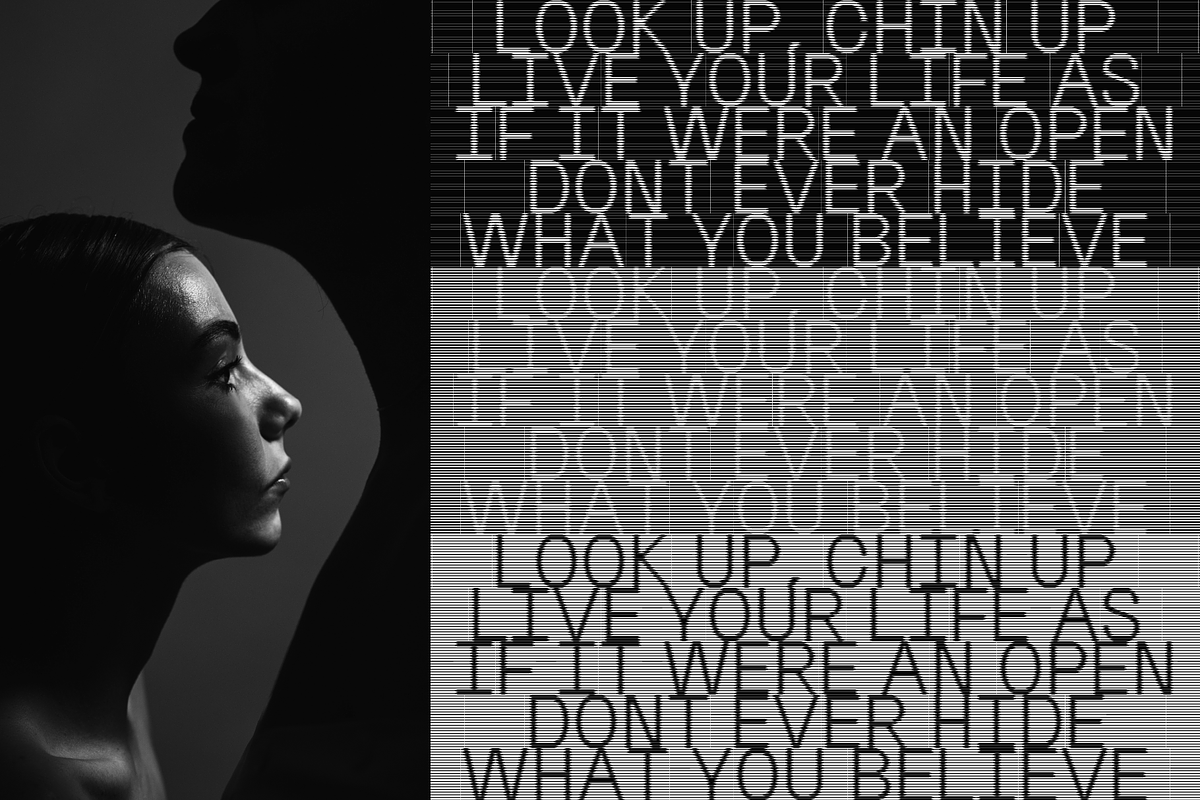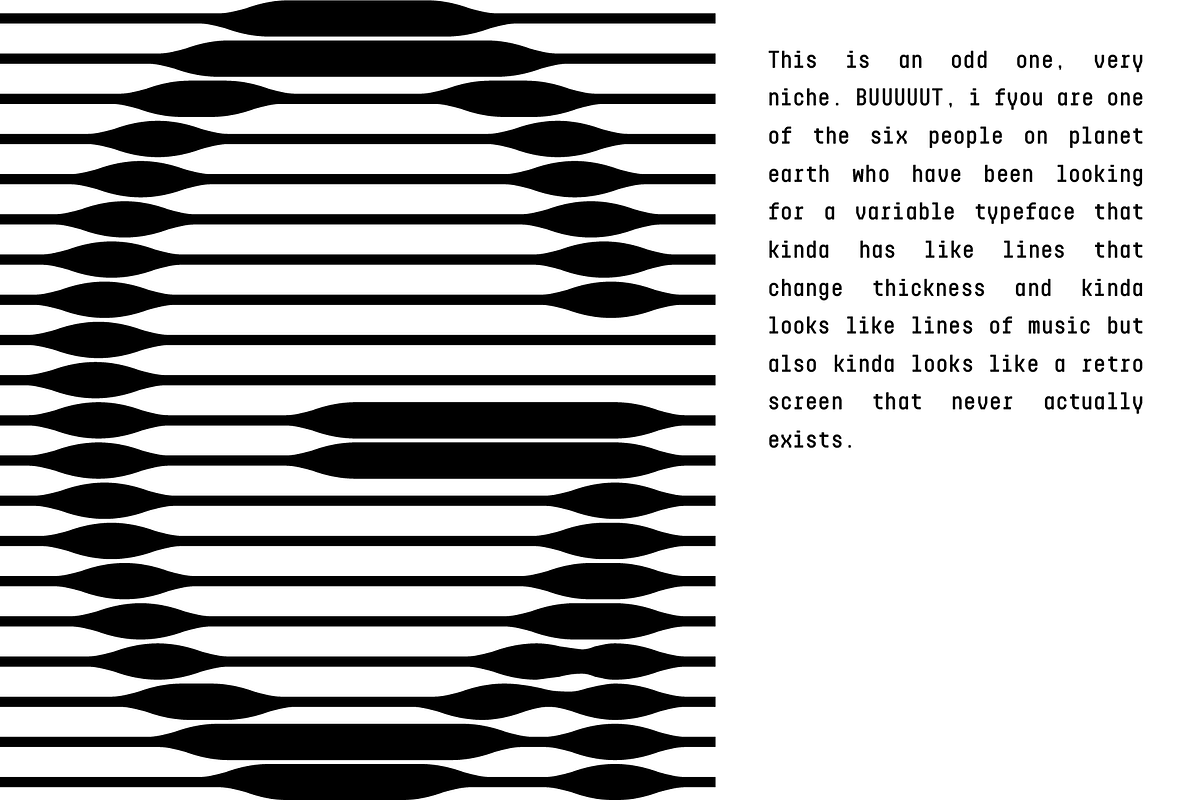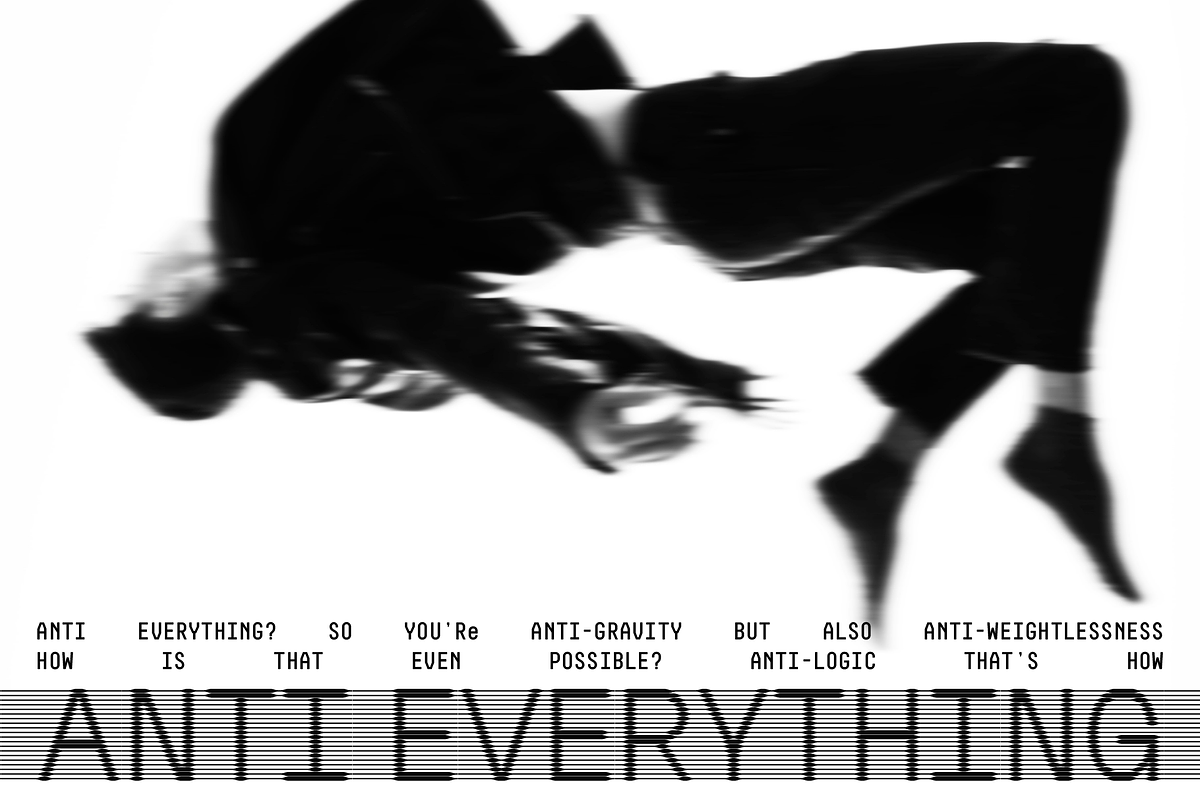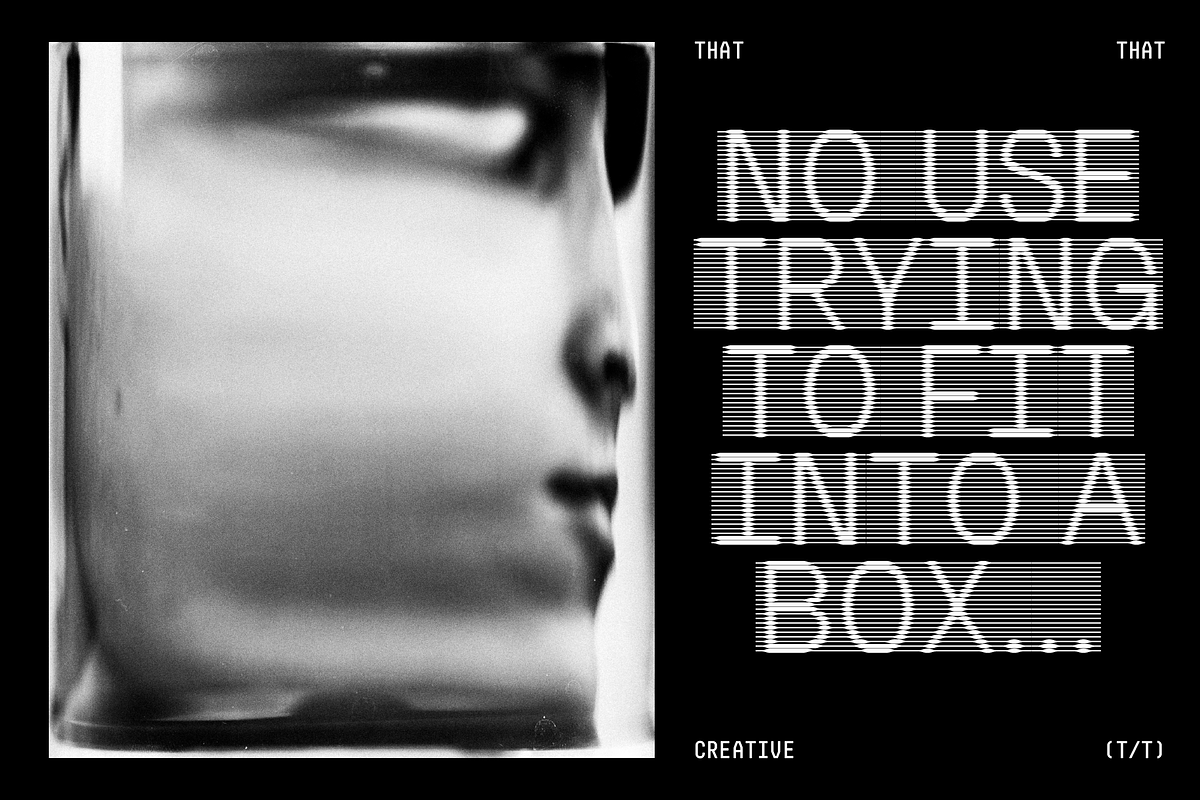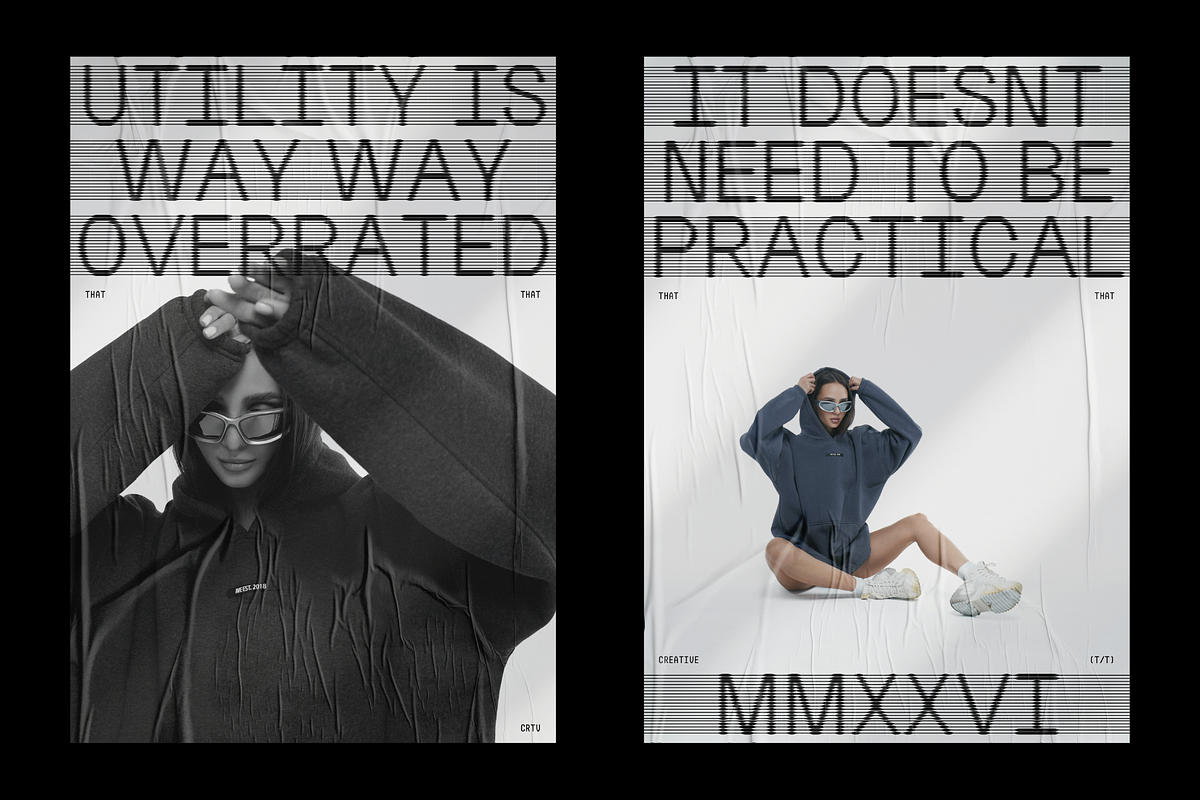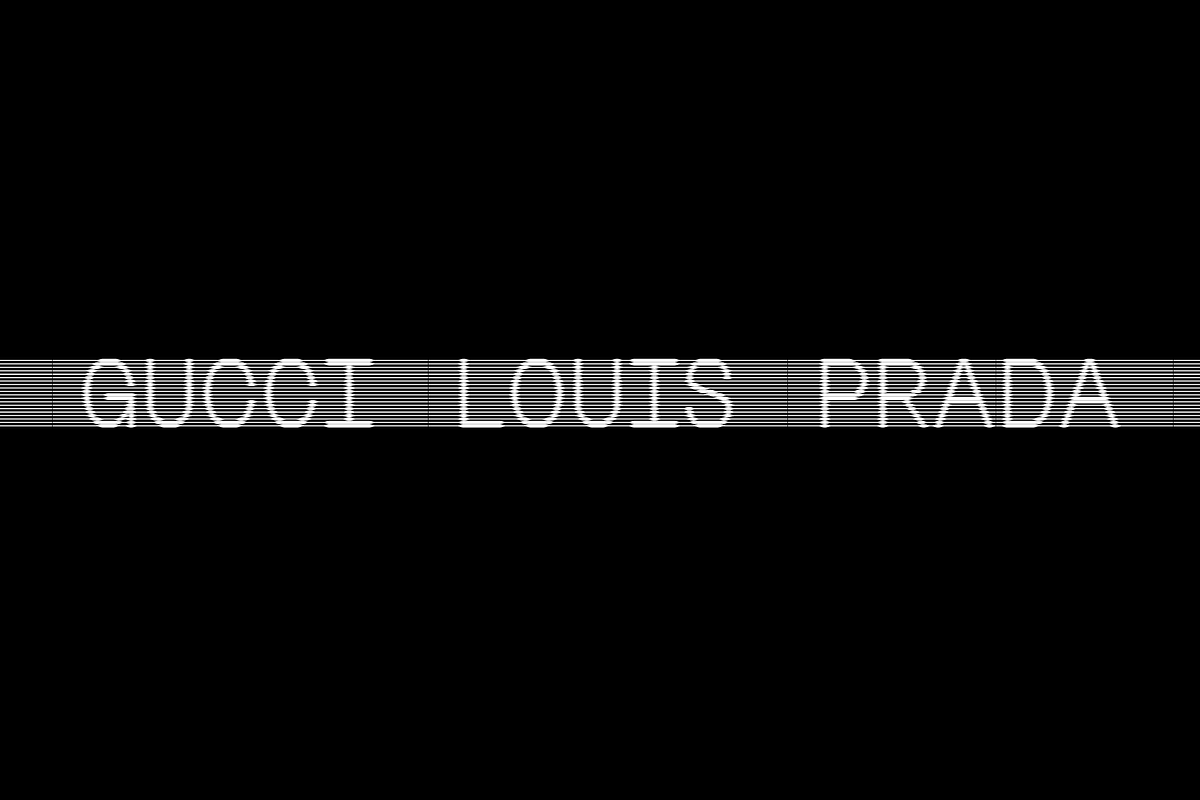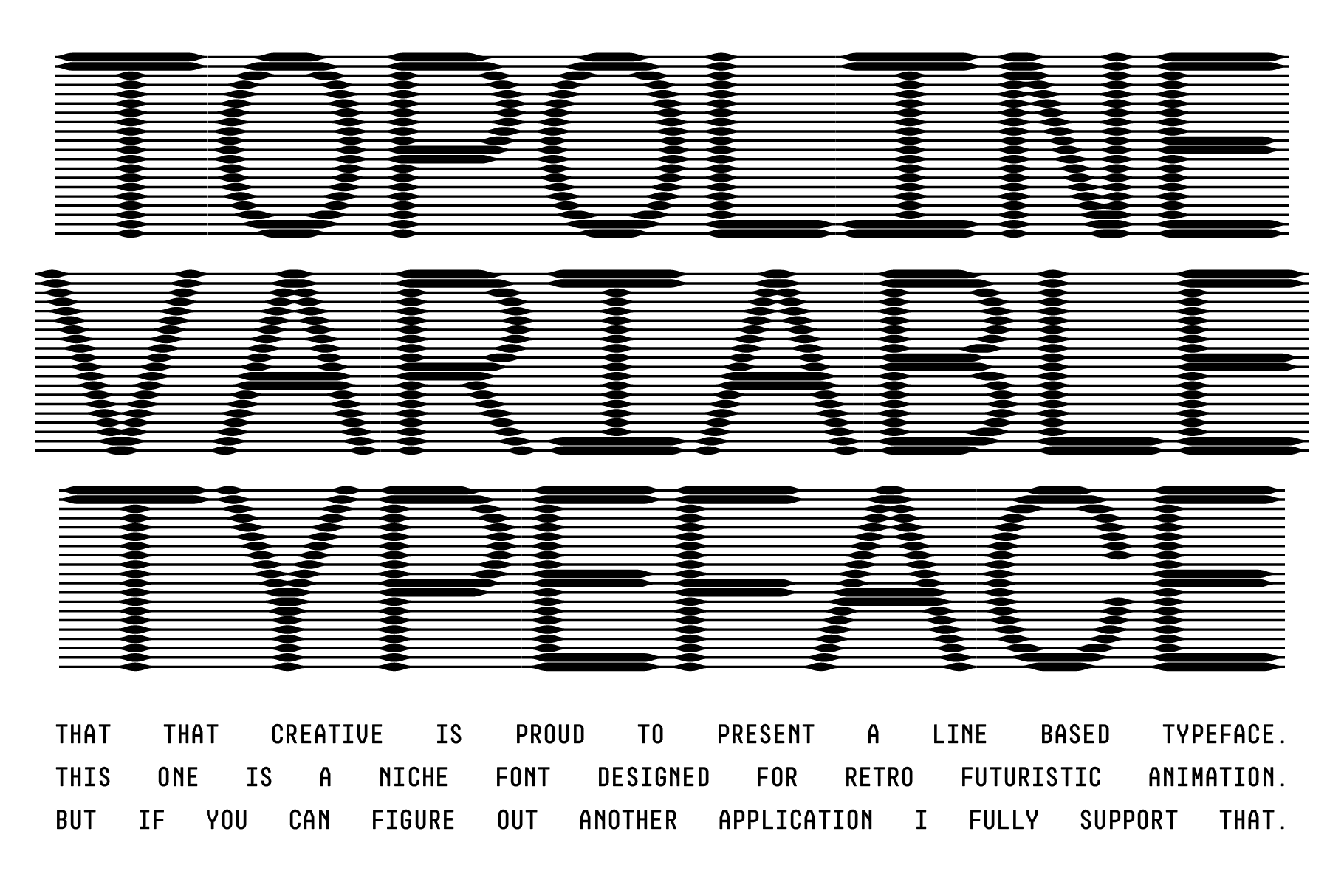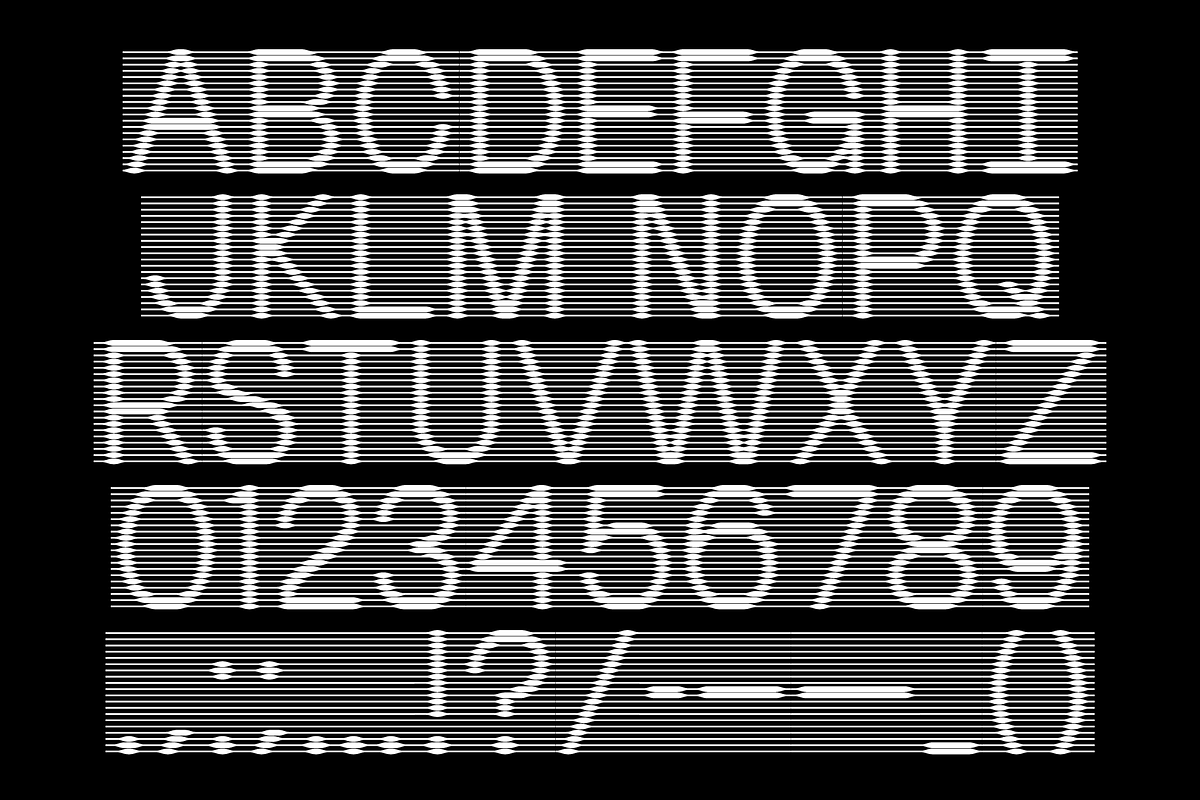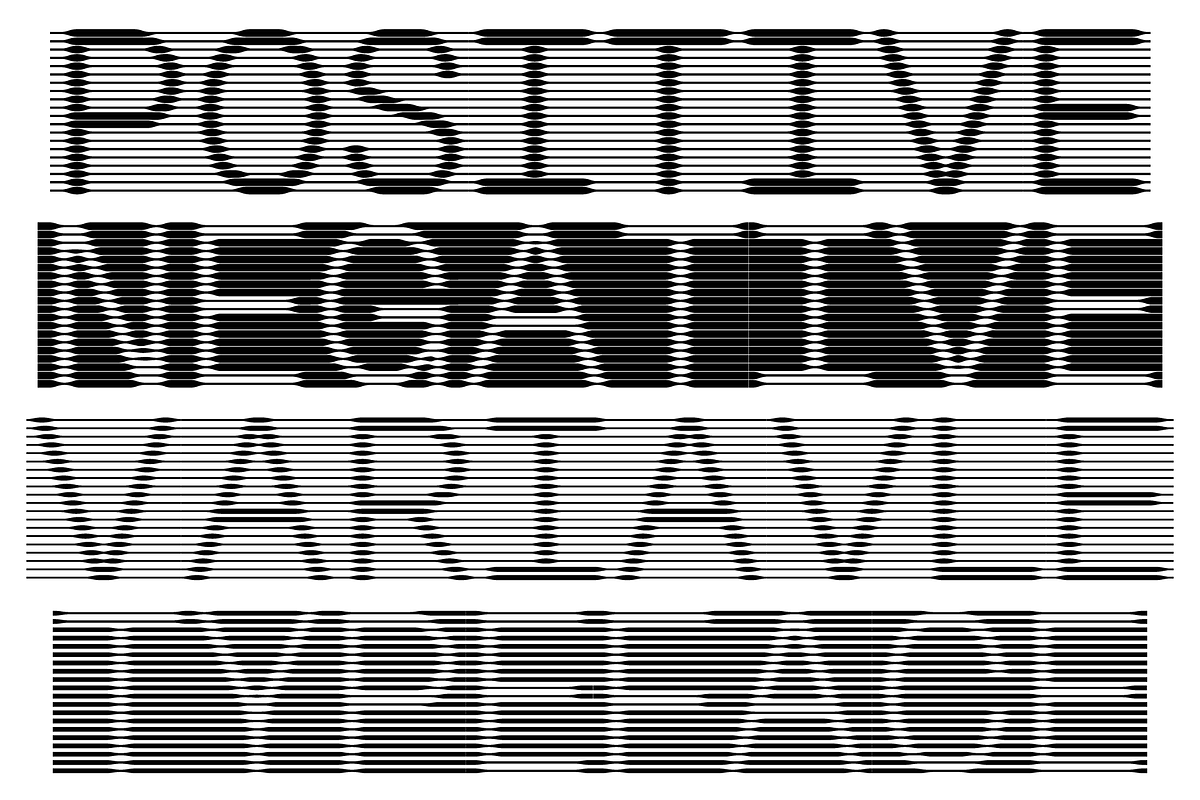
Topoline Variable Line Font
Topoline is a unique one of a kind variable line font. This font is inspired by retro screen displays. If you are looking for a retro tech vibe for your design or animations check this out
- A-Z Caps
- 0-9 Numbers
- Some Punctuation